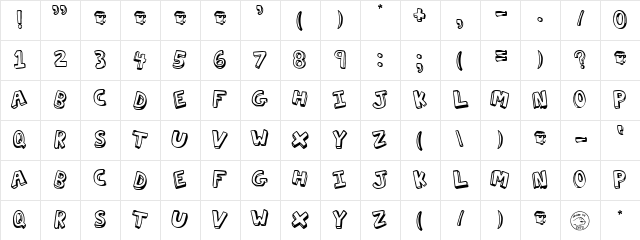
Action Jackson Regular
| Foundry | [Divide By Zero] Fonts |
| Designer | Tom Murphy 7 |
Design Context for Action Jackson Typeface
Action Jackson is a composed and adaptable typeface that performs quietly and consistently across a wide range of design contexts.